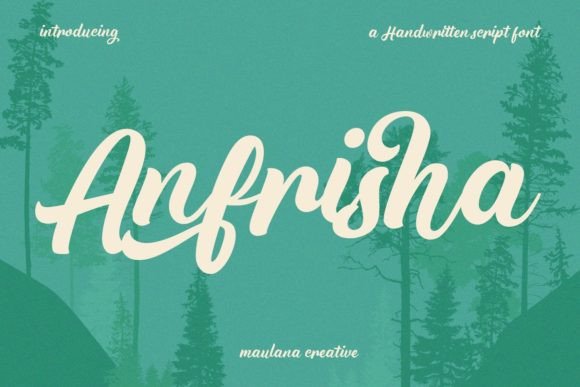
Immerse yourself in the captivating world of Anfrisha Font, a cursive display script that exudes elegance and charm. Its bold contrast strokes and playful characters, adorned with ligatures and alternates, unleash a world of creative possibilities. Whether you're a seasoned designer or just starting, Anfrisha is your perfect companion for crafting stunning visual masterpieces.
Embark on a typographic journey with Anfrisha, where your words dance across the screen with grace and fluidity. Its dynamic personality shines through in logo designs, social media posts, movie titles, book covers, and even lengthy texts. Anfrisha effortlessly complements sans or serif fonts, adding a touch of sophistication and intrigue to your designs.
Unleash your creativity and let Anfrisha guide you towards stunning visual masterpieces. Its versatility knows no bounds, allowing you to effortlessly create captivating designs that leave a lasting impression. Join the ranks of creative professionals who have discovered the magic of Anfrisha and elevate your work to new heights of excellence.